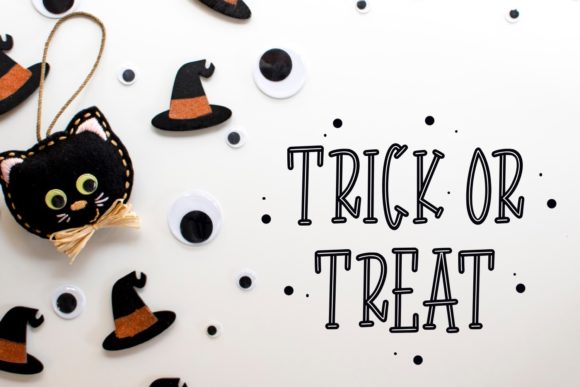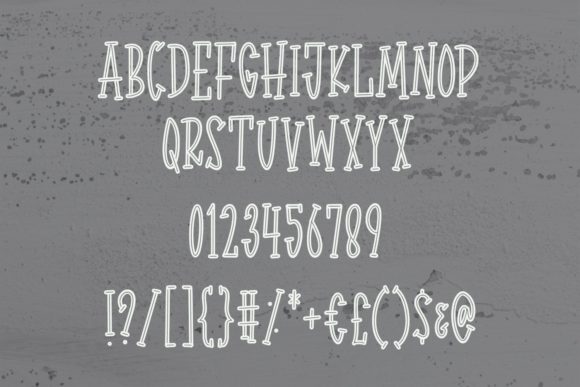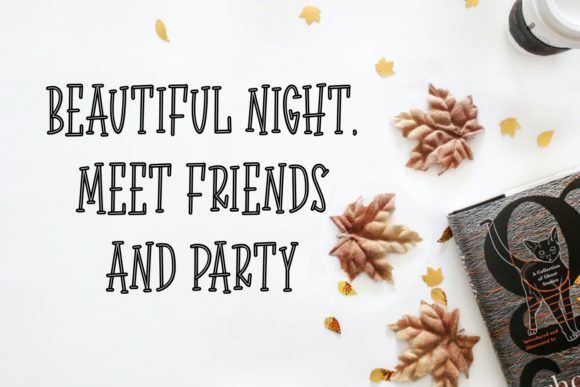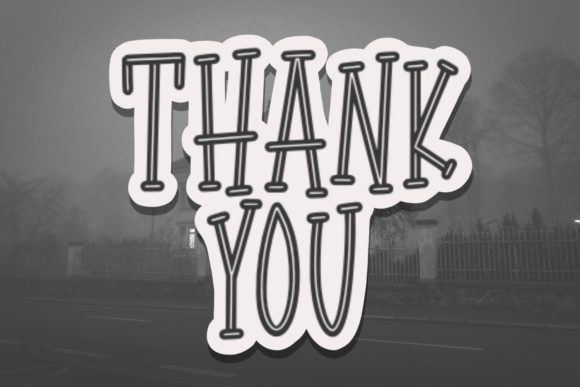
Creaky Forest Font: The Perfect Addition to Your Spooky Halloween Creations
Are you looking for a font that will add a touch of spookiness to your Halloween creations? Look no further than the Creaky Forest Font. This cool and creepy display font is perfect for designers and crafters who want to create eye-catching and eerie designs that will leave a lasting impression.
What is Creaky Forest Font?
Creaky Forest Font is a unique and specially designed font that is perfect for Halloween-themed projects. Its creepy and rugged appearance is sure to add a touch of spookiness to any design. The font is designed to resemble the twisted and gnarled branches of a forest, giving it a haunting and eerie feel.
Key Features of Creaky Forest Font
- Creepy and Spooky Design: The Creaky Forest Font has a unique and creepy design that is perfect for Halloween-themed projects.
- Display Font: This font is specifically designed as a display font, making it perfect for headlines, titles, and other prominent text elements.
- High-Quality Design: The font is designed with high-quality and crisp lines, making it perfect for printing and digital use.
The Creaky Forest Font is perfect for designers and crafters who want to create spooky and eye-catching designs for Halloween. Here are some ideas to get you started:
- Halloween Invitations: Use the Creaky Forest Font to create spooky and inviting Halloween invitations.
- Social Media Graphics: Create eye-catching social media graphics with the Creaky Forest Font to promote your Halloween-themed events or products.
- Party Decorations: Use the font to create spooky and festive party decorations, such as banners, signs, and posters.
- Craft Projects: Add the Creaky Forest Font to your craft projects, such as Halloween-themed cards, gift tags, and scrapbook pages.
Tips for Using Creaky Forest Font
Here are some tips for using the Creaky Forest Font:
- Use it Sparingly: The Creaky Forest Font is a bold and eye-catching font, so use it sparingly to avoid overwhelming your design.
- Pair it with Other Fonts: Pair the Creaky Forest Font with other fonts to create a unique and interesting contrast.
- Experiment with Colors: Experiment with different colors to find the perfect combination that complements the Creaky Forest Font.
The Creaky Forest Font is a unique and creepy display font that is perfect for Halloween-themed projects. Its spooky and rugged design is sure to add a touch of eeriness to any design. With its ease of use and high-quality design, the Creaky Forest Font is a must-have for designers and crafters who want to create eye-catching and spooky designs. So, add it confidently to your Halloween creations and let yourself be amazed by the outcome generated.